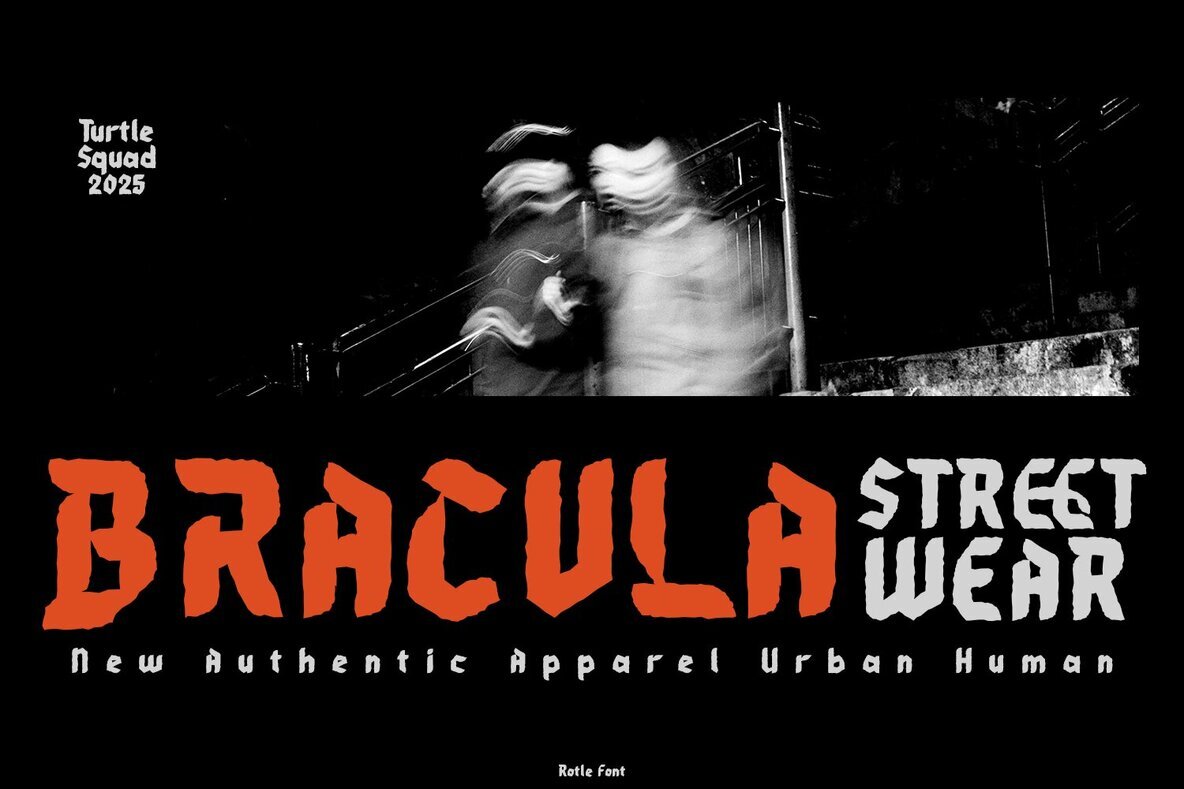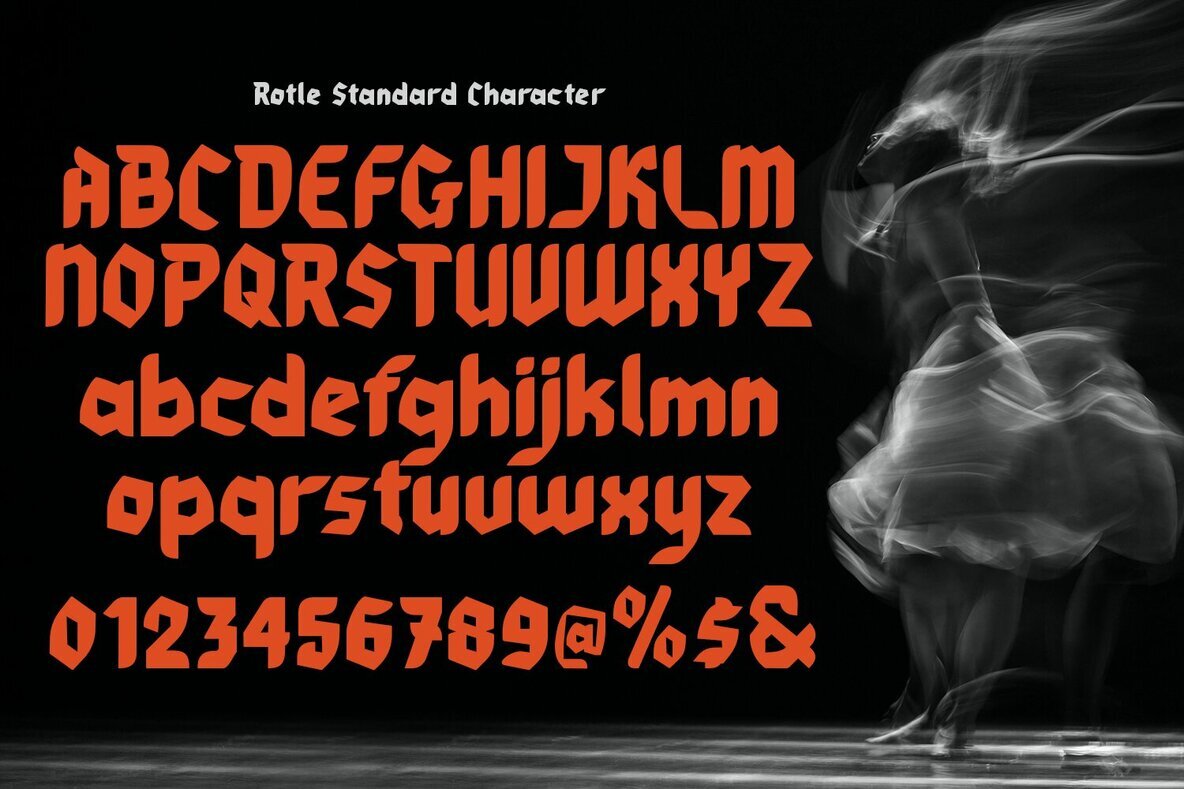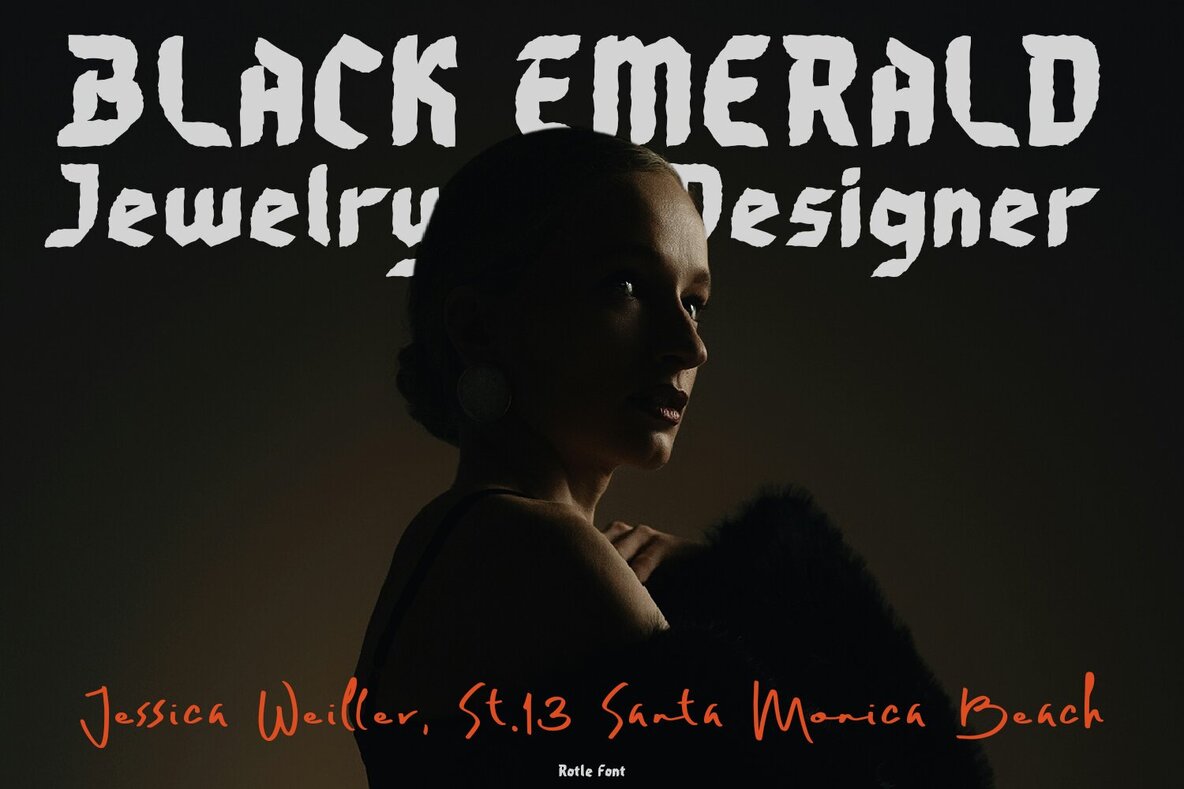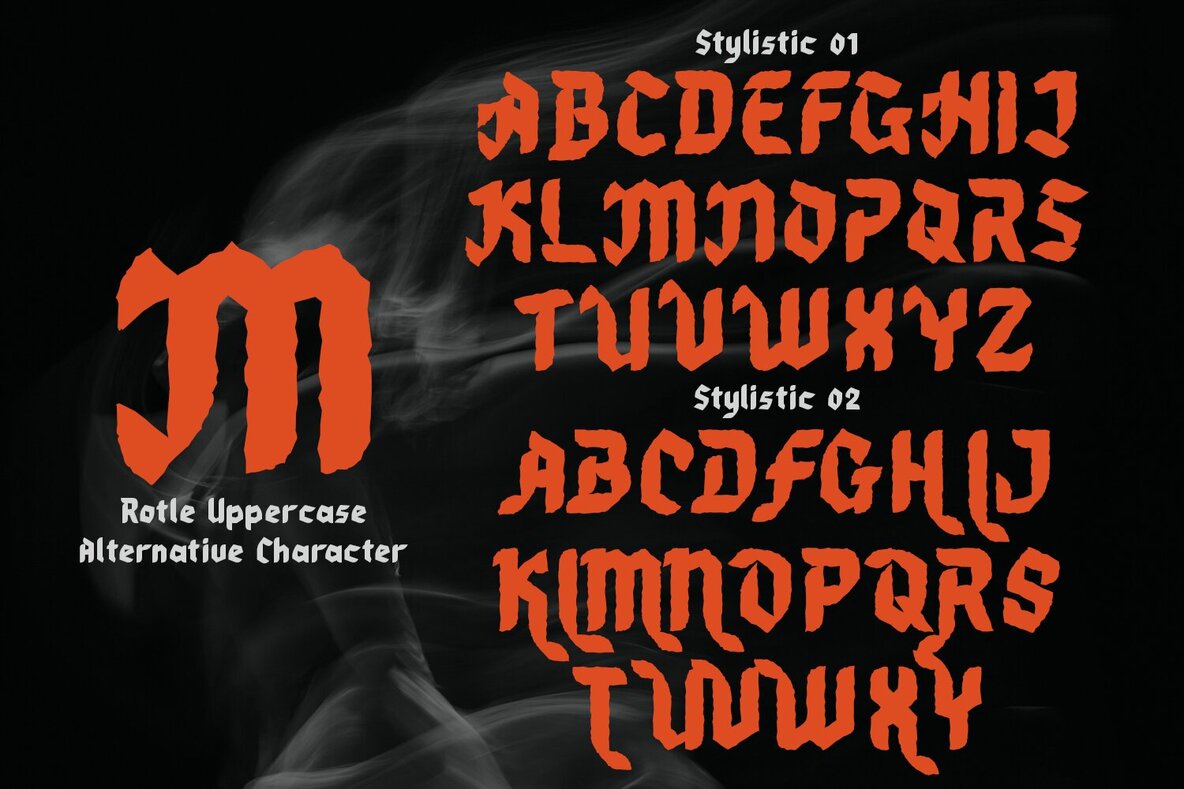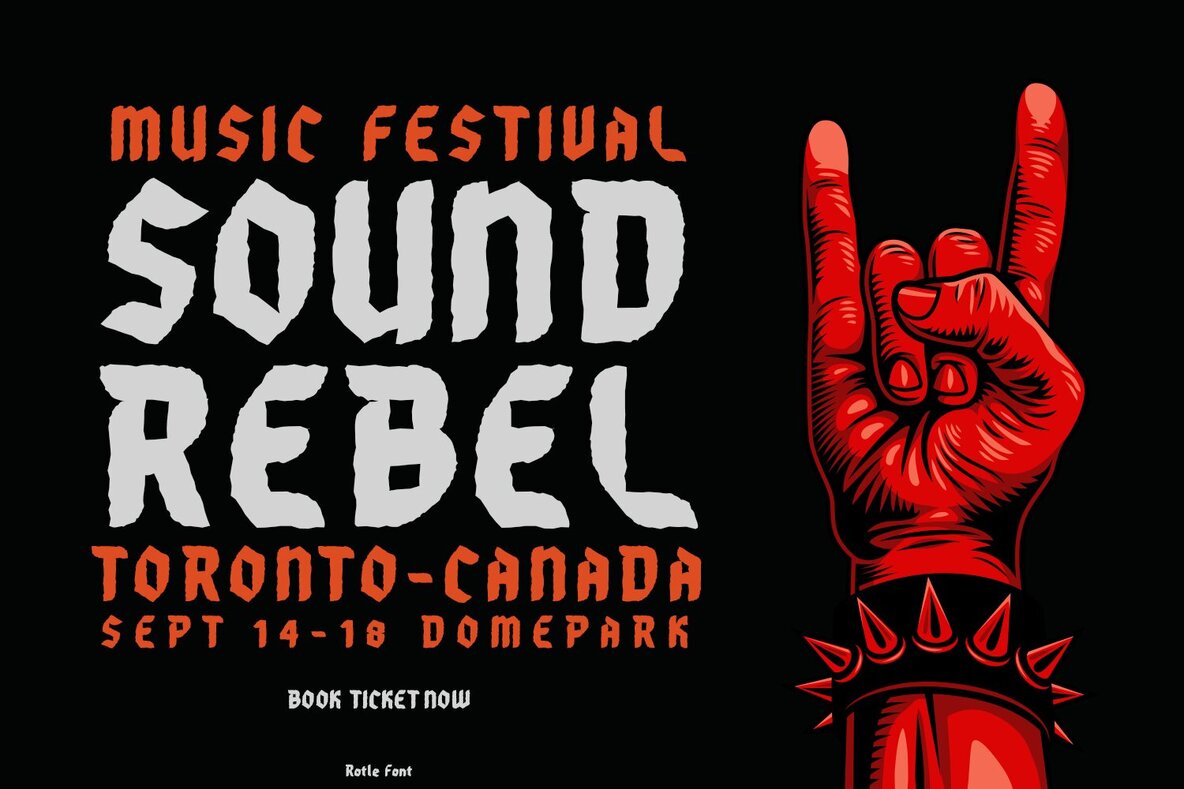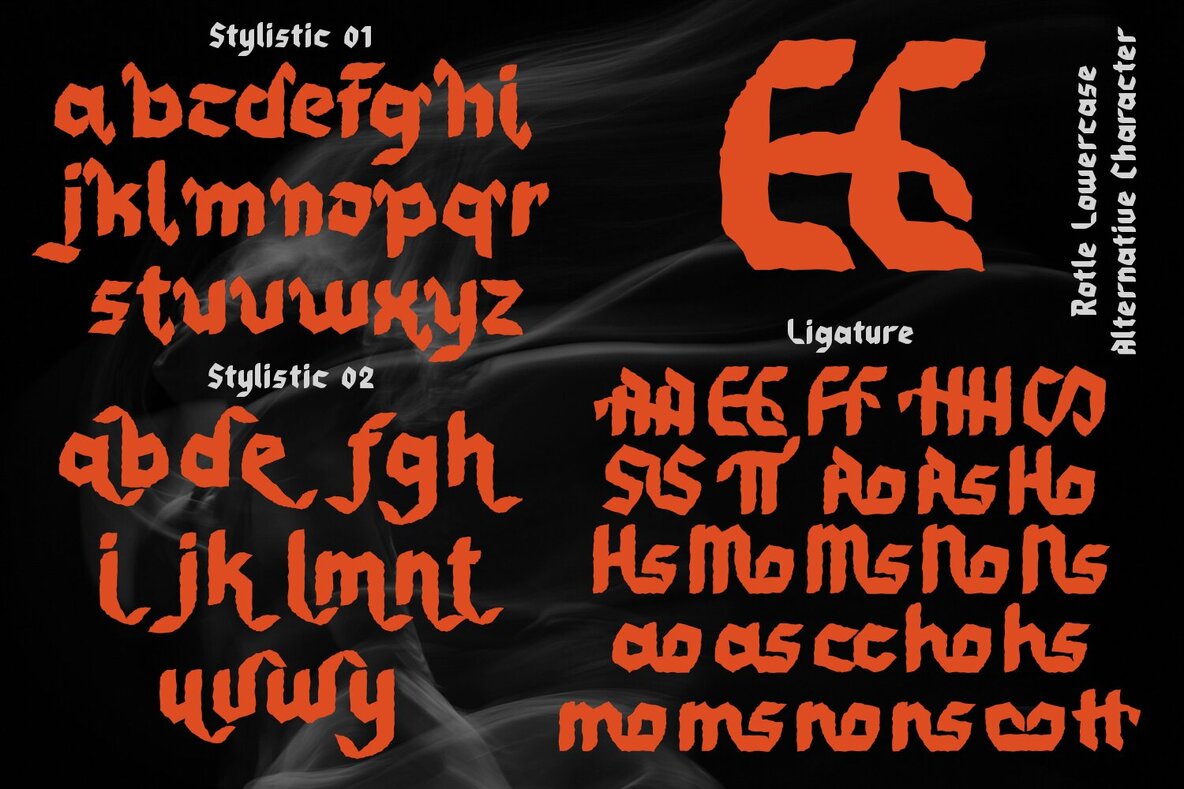
Rotle Font
Rough and bold, this font embodies a dynamic blackletter style fused with grunge textures, making it perfect for contemporary urban and experimental designs. Its angular and jagged letterforms create a striking impact ideal for headlines, posters, and edgy branding projects. Step up your design game by using this font to capture attention with its heavy, textured appearance.